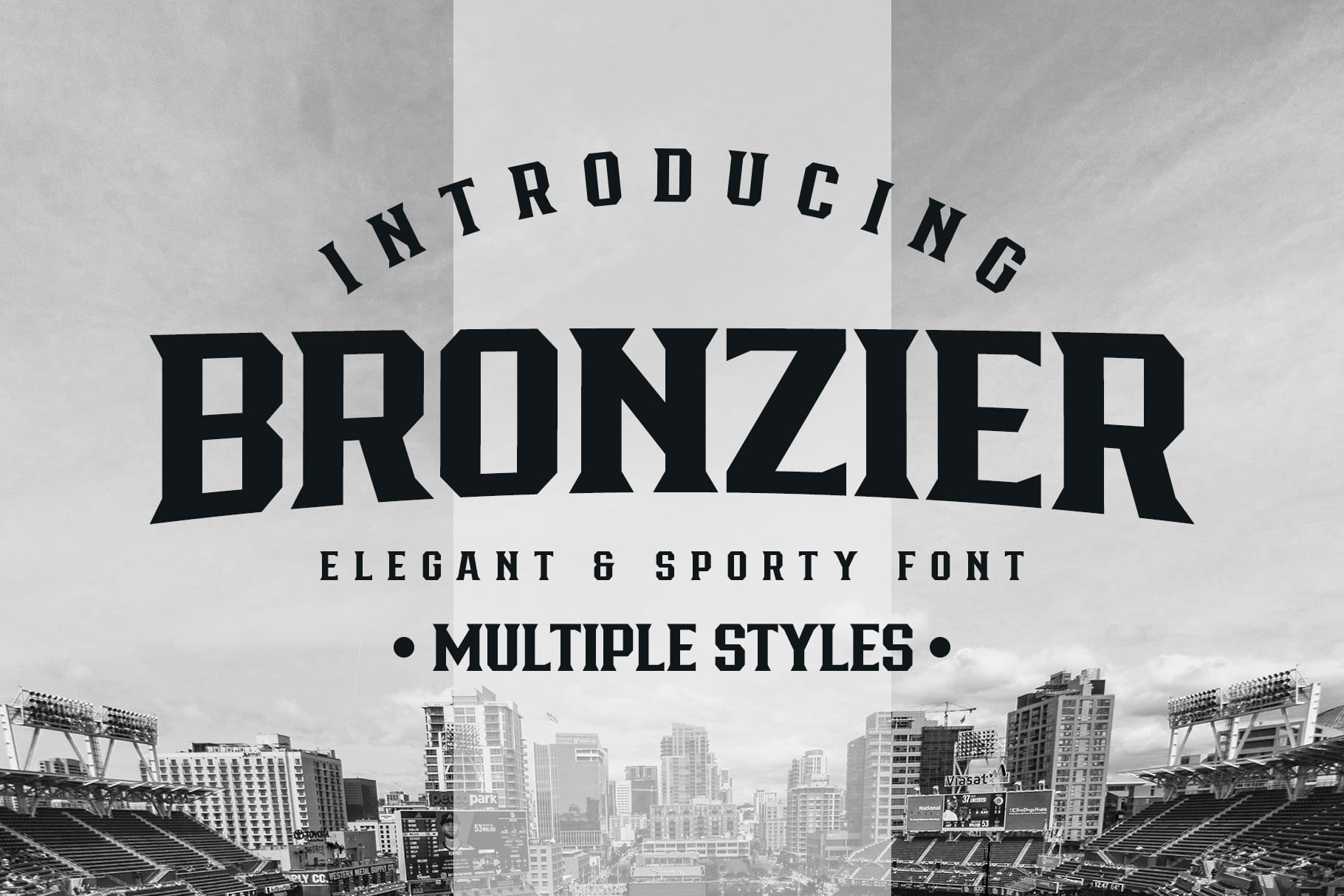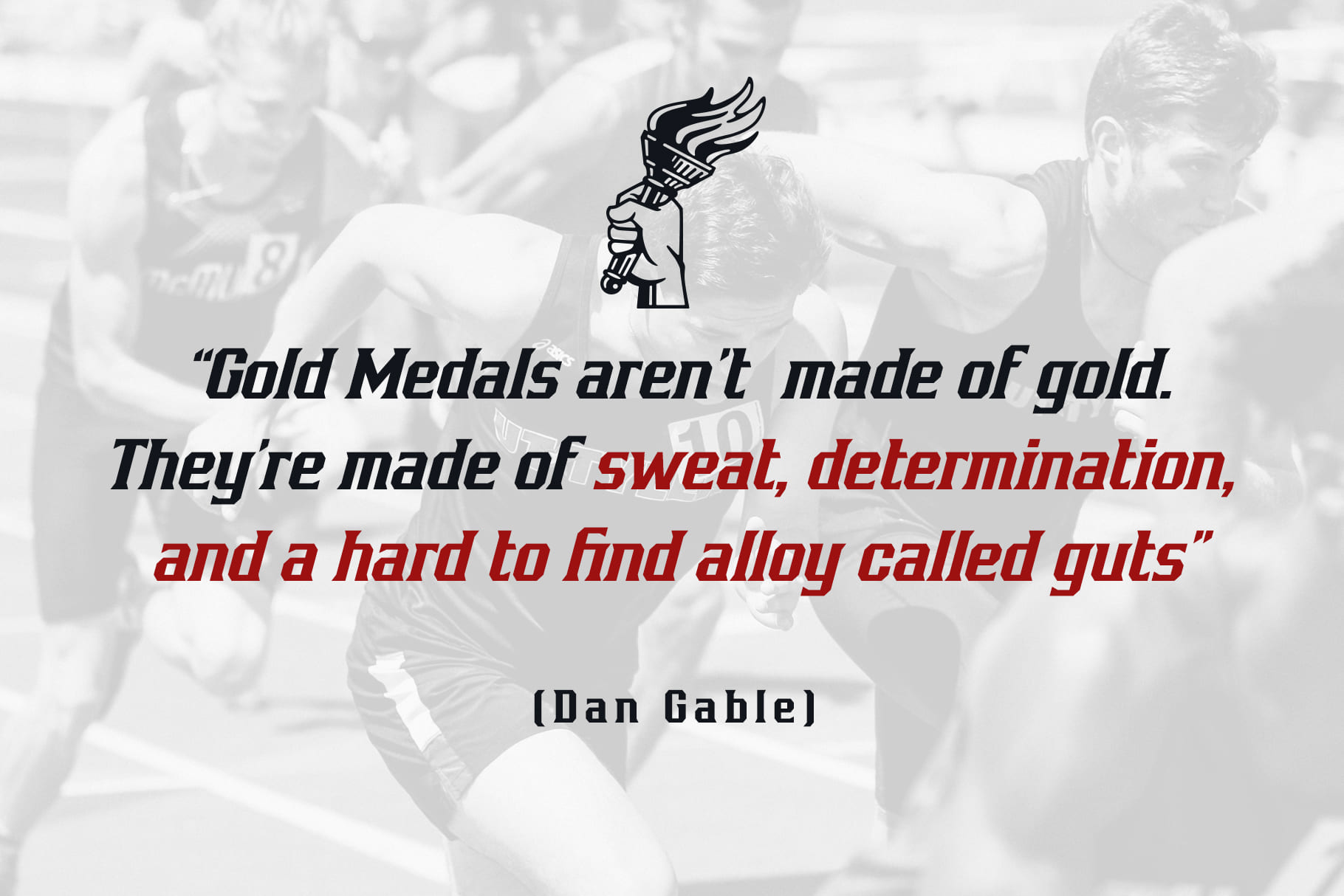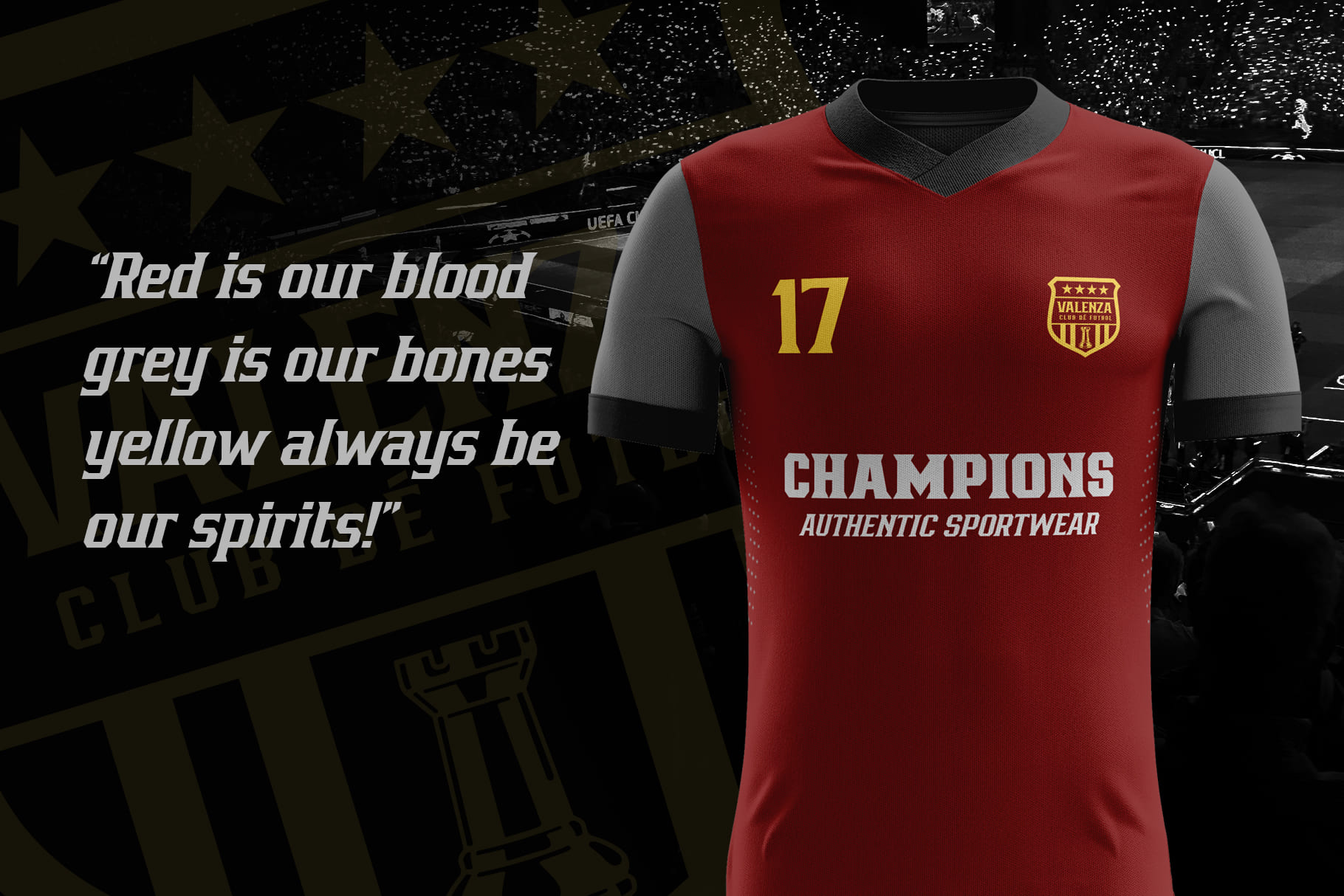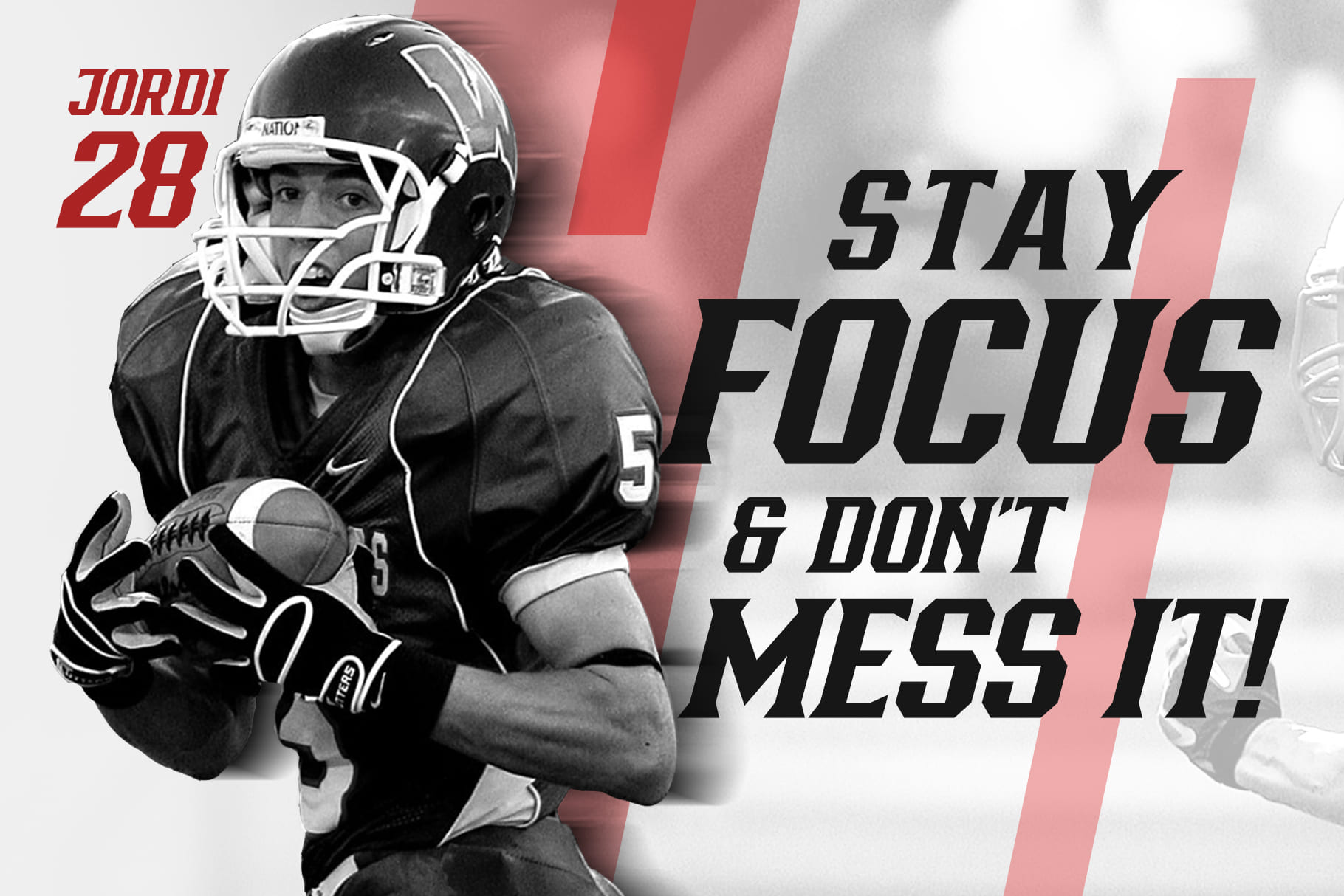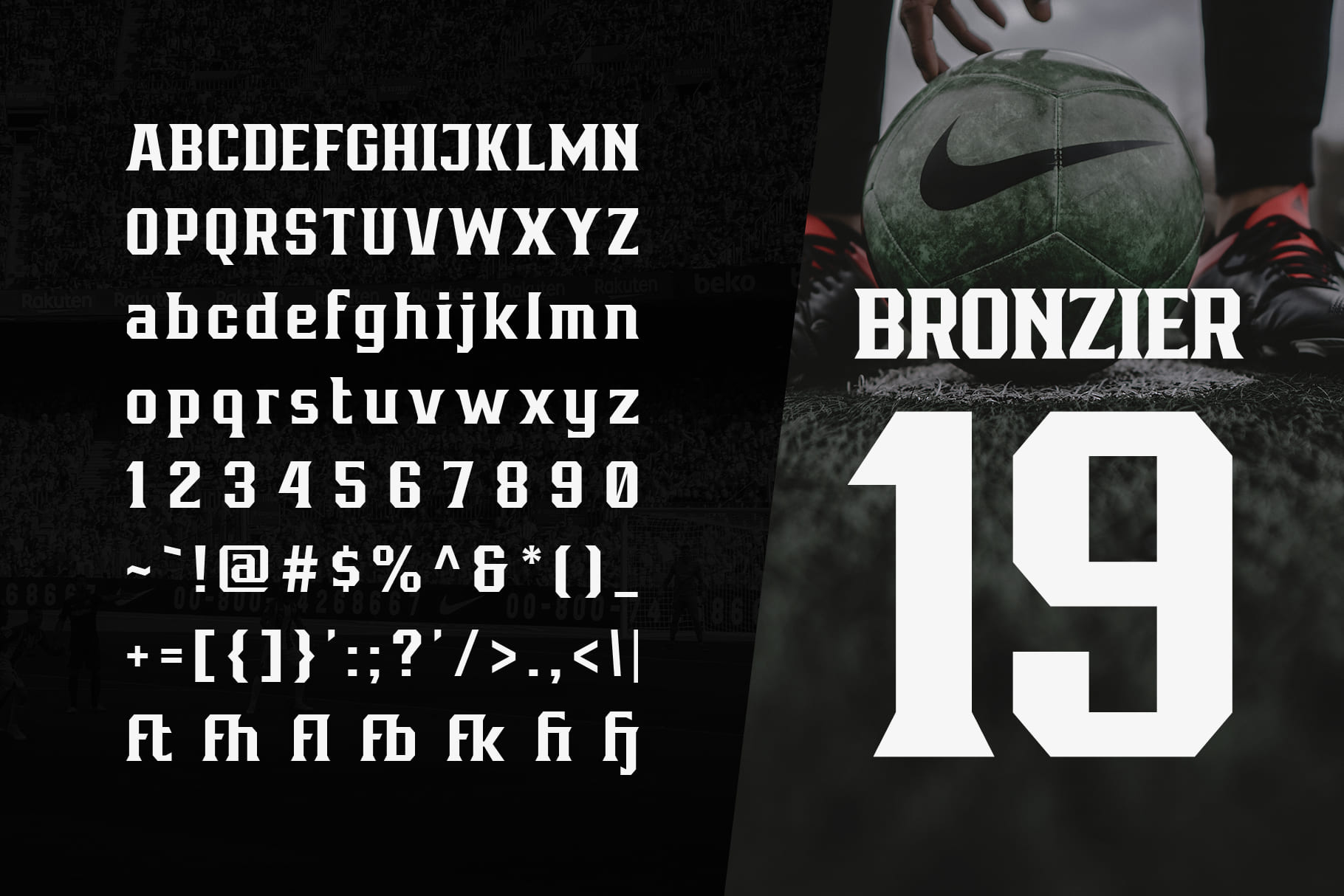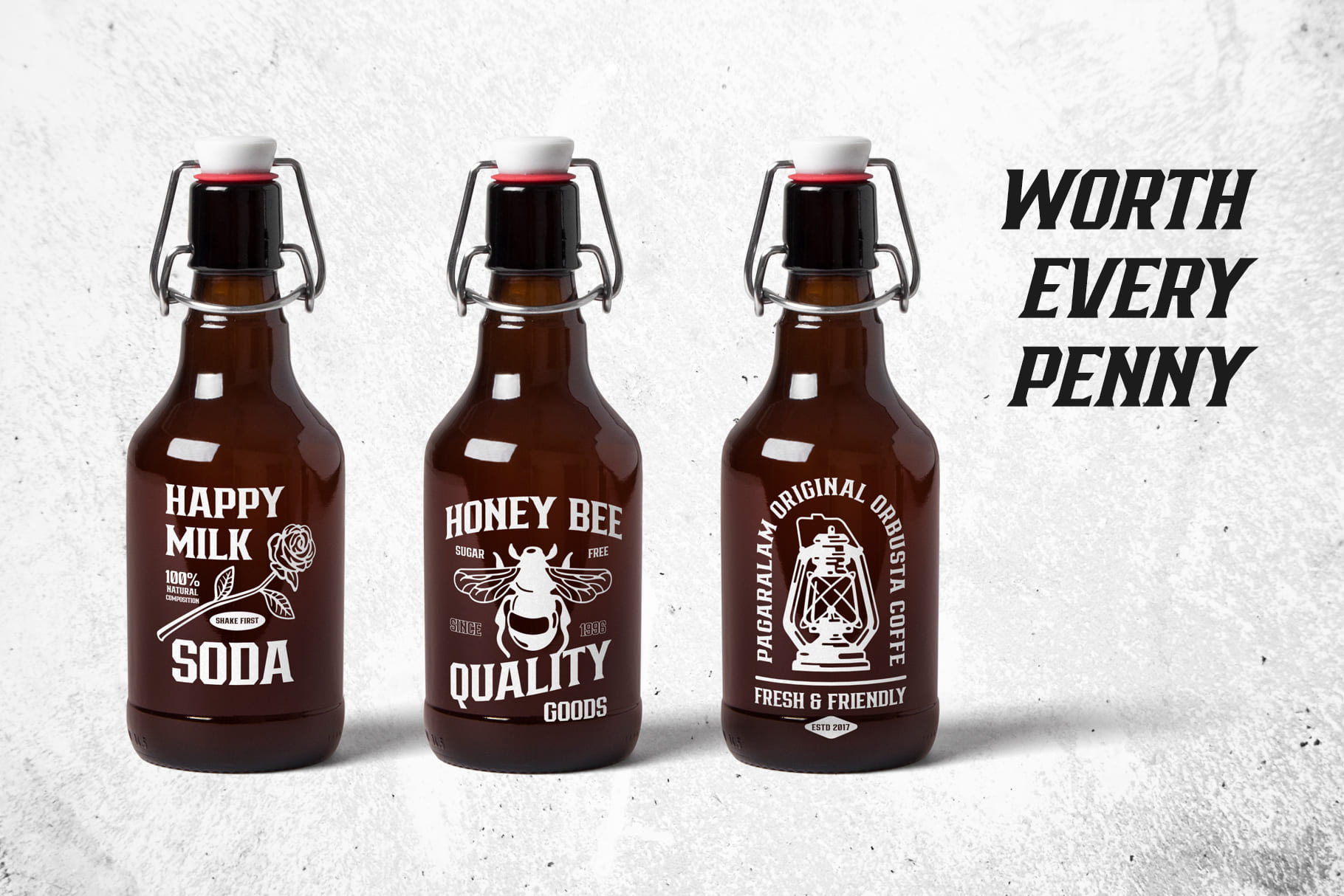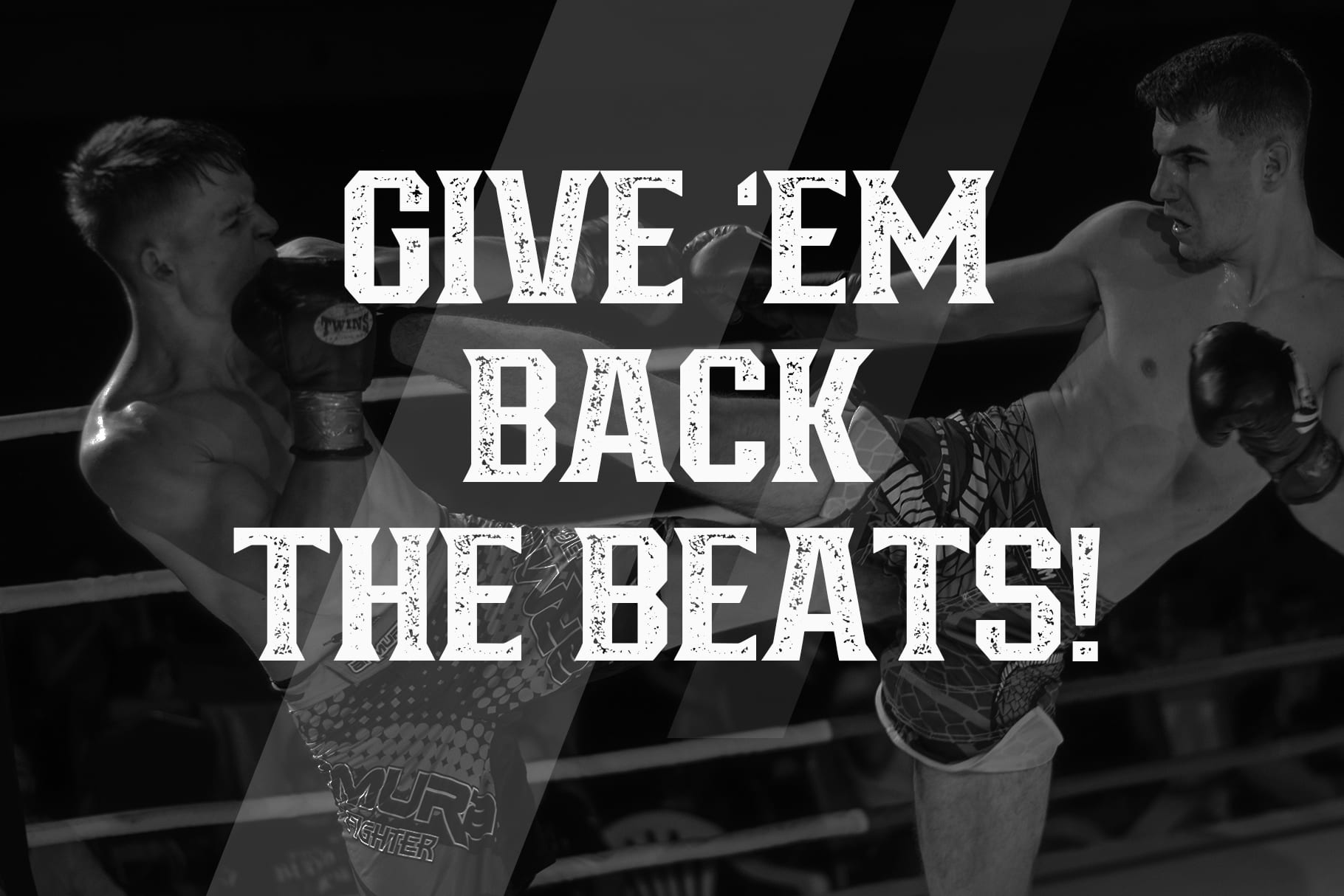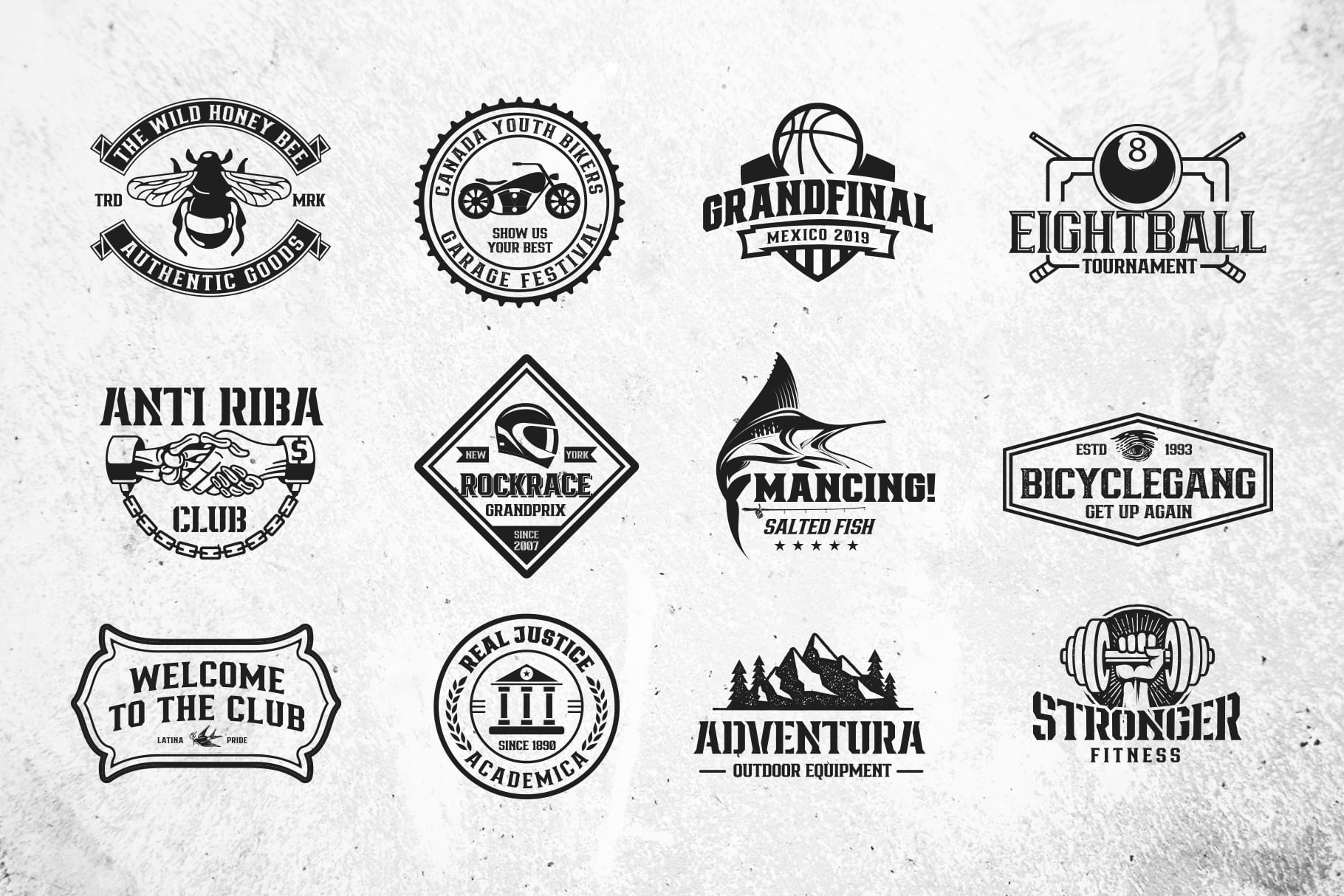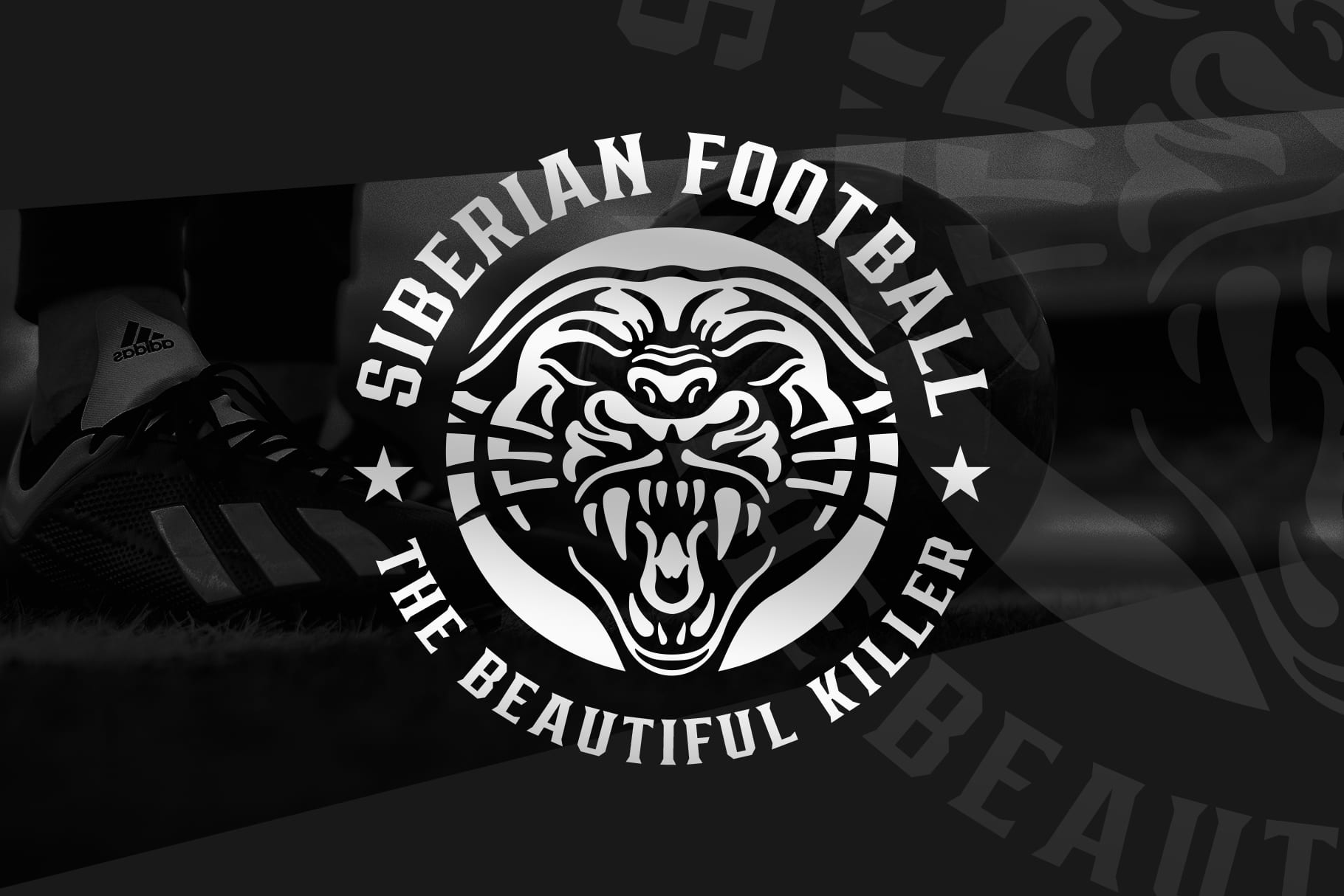
Bronzier Family (8 fonts)
From Arterfak Project
Bronzier is suitable for logos, logotypes, apparel, jerseys, tags, labels, posters, stickers, branding and more.